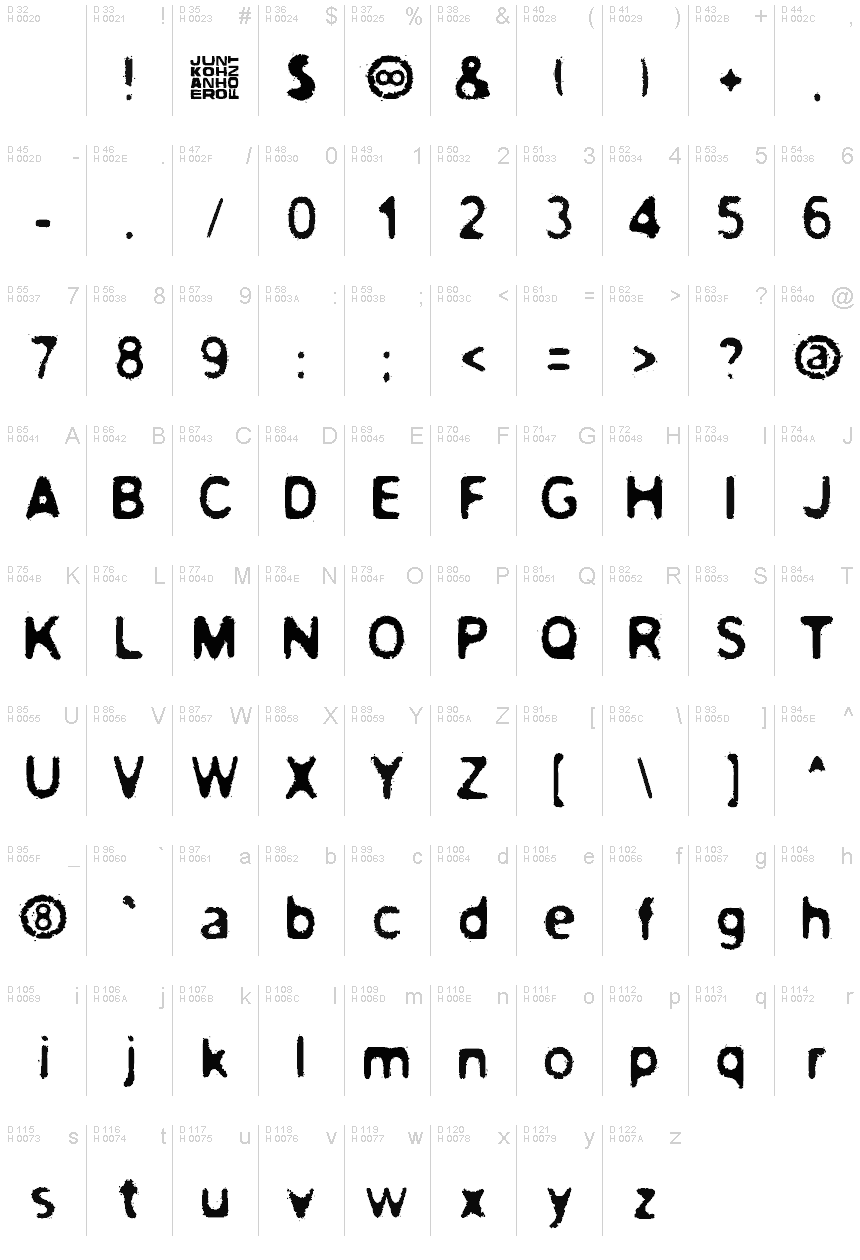
Paltamo 88300
Paltamo 88300 emerges as a distinct display font that exudes a raw, tactile charisma. Crafted by the inventive junkohanhero, it stands out with an eroded style that captures the essence of time-worn elegance in its semi-bold weight. The carefully distressed texture adds depth and character, making it a stellar choice for projects aiming to evoke nostalgia or convey a rugged authenticity.
The aesthetic appeal of Paltamo 88300 lies in its ability to merge imperfection with artistry, offering designers a typeface that is both visually intriguing and emotionally resonant. This font is ideally suited for creative endeavors such as music album covers, vintage branding, edgy editorial layouts, and any platform where a touch of grit can transform the ordinary into the extraordinary.